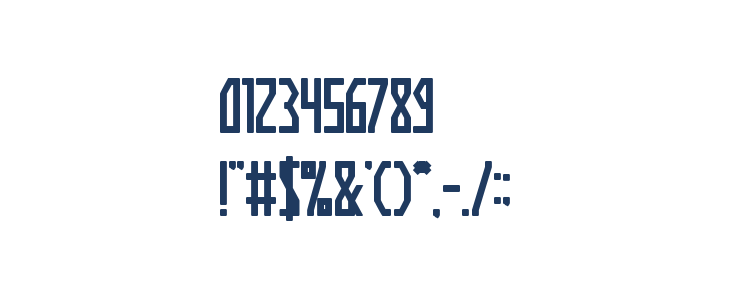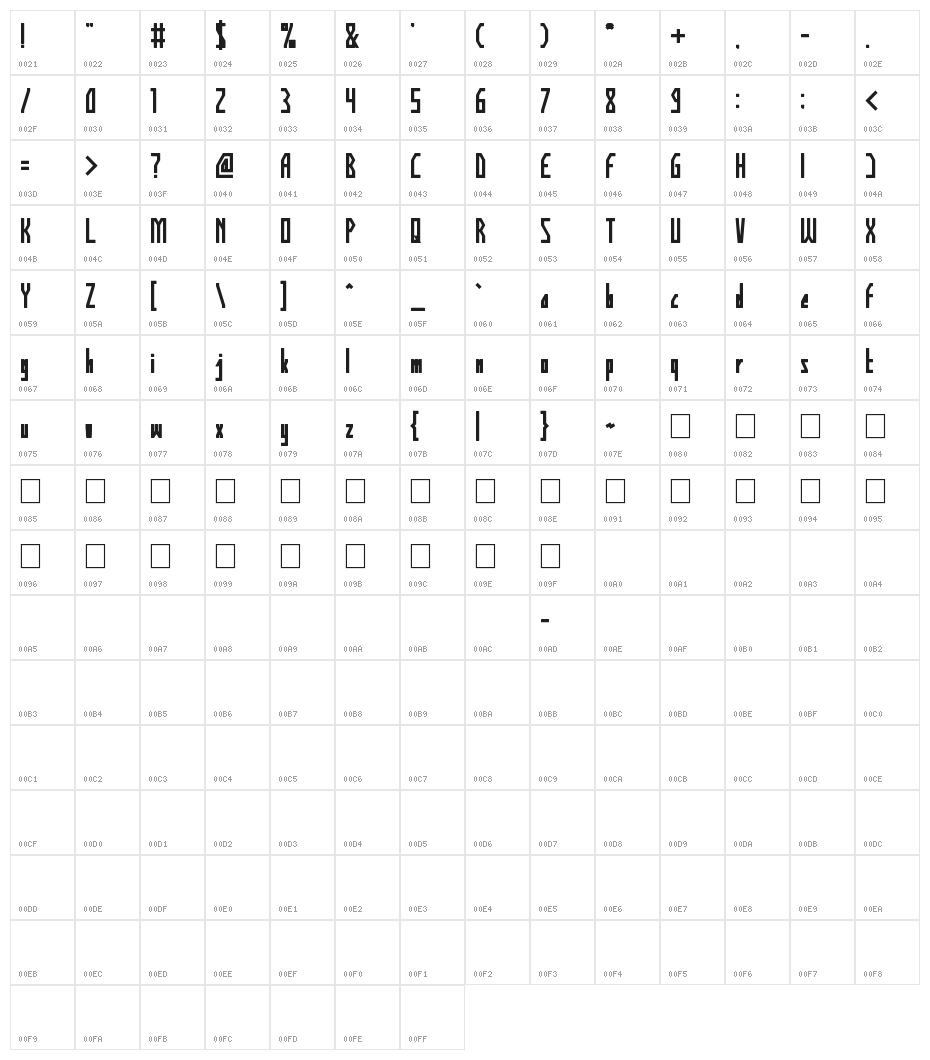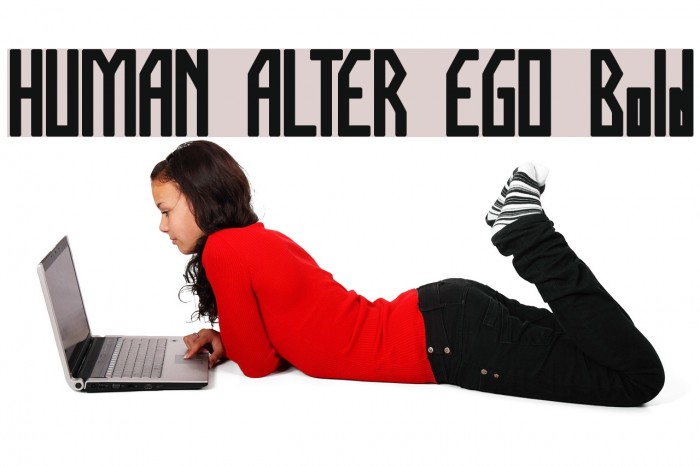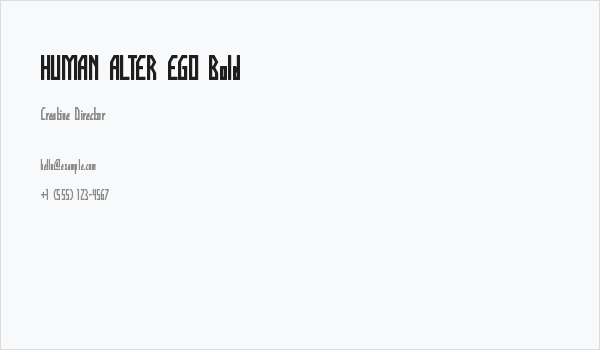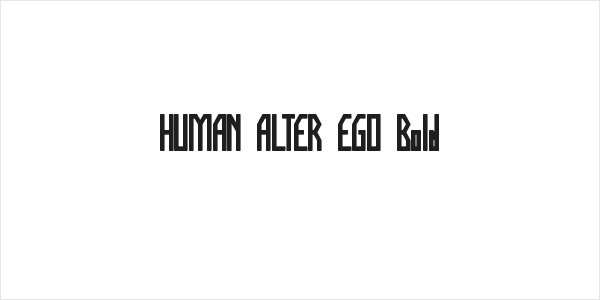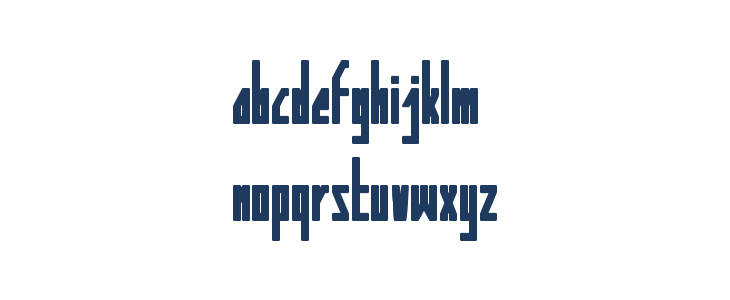
HUMAN ALTER EGO Bold Font
HUMAN ALTER EGO Bold Description
This font features a bold and geometric style with a strong presence. The characters are constructed with straight lines and sharp angles, giving it a modern and futuristic appearance. The uppercase letters are particularly striking, with a uniform height and width that create a cohesive look. The lowercase letters maintain the same geometric style, ensuring consistency across the typeface. Numbers and special characters are designed to match the boldness and angularity of the alphabet, making this font suitable for impactful designs. The overall style is both assertive and clean, making it ideal for projects that require a strong visual statement.
| Proposed Projects | Ideal for branding, posters, headlines, and any design needing a strong, modern aesthetic. |